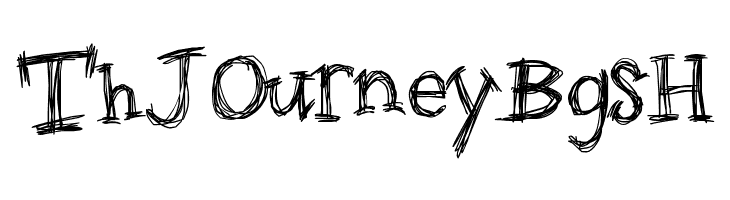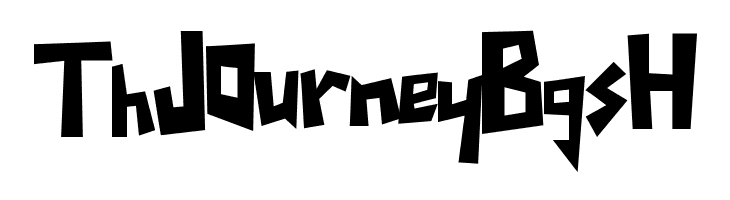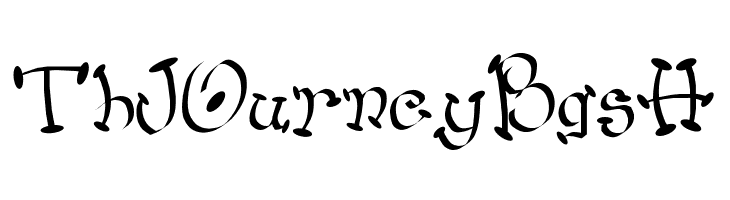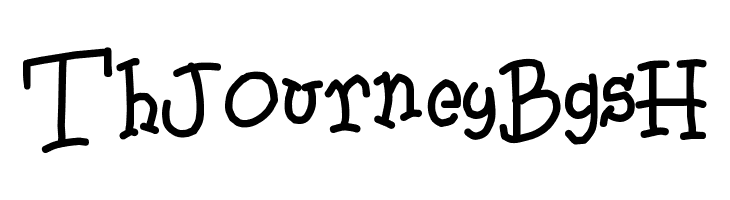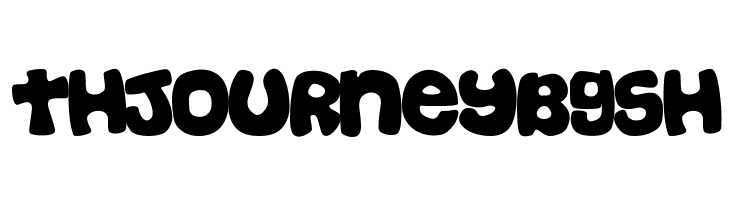
A rugged, hand-drawn font with a rough, textured appearance.
A bold, edgy font with sharp, angular lines and a playful, rebellious style.
A whimsical and playful font with exaggerated curves and unique character shapes.
A playful, hand-drawn font with whimsical, irregular letterforms.
A bold, playful font with rounded, thick strokes and a casual, friendly vibe.
A playful, hand-drawn font with a whimsical, cartoonish style.